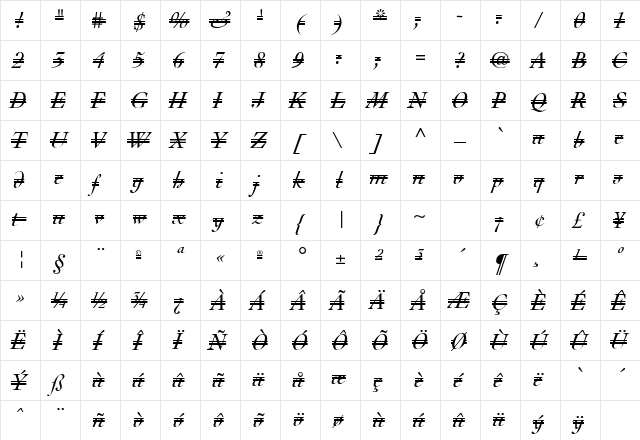
Triple SlashSerif
Design Context for Triple Typeface
Triple brings classic typographic sensibility to the table — its serifs and measured letterforms reflect centuries of print heritage.
Pro Tip: Use Triple for editorial body copy and considered headline work. Pair with a neutral sans for UI elements or captions to create a classic hierarchy.